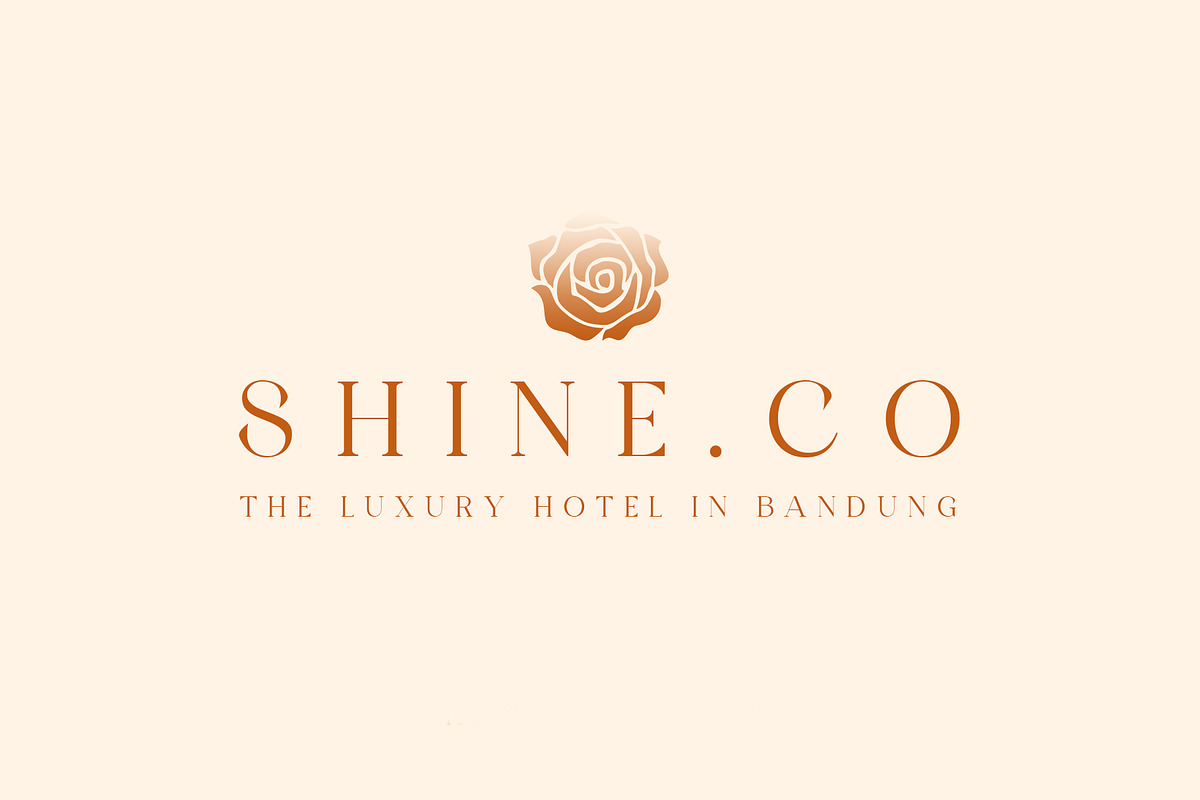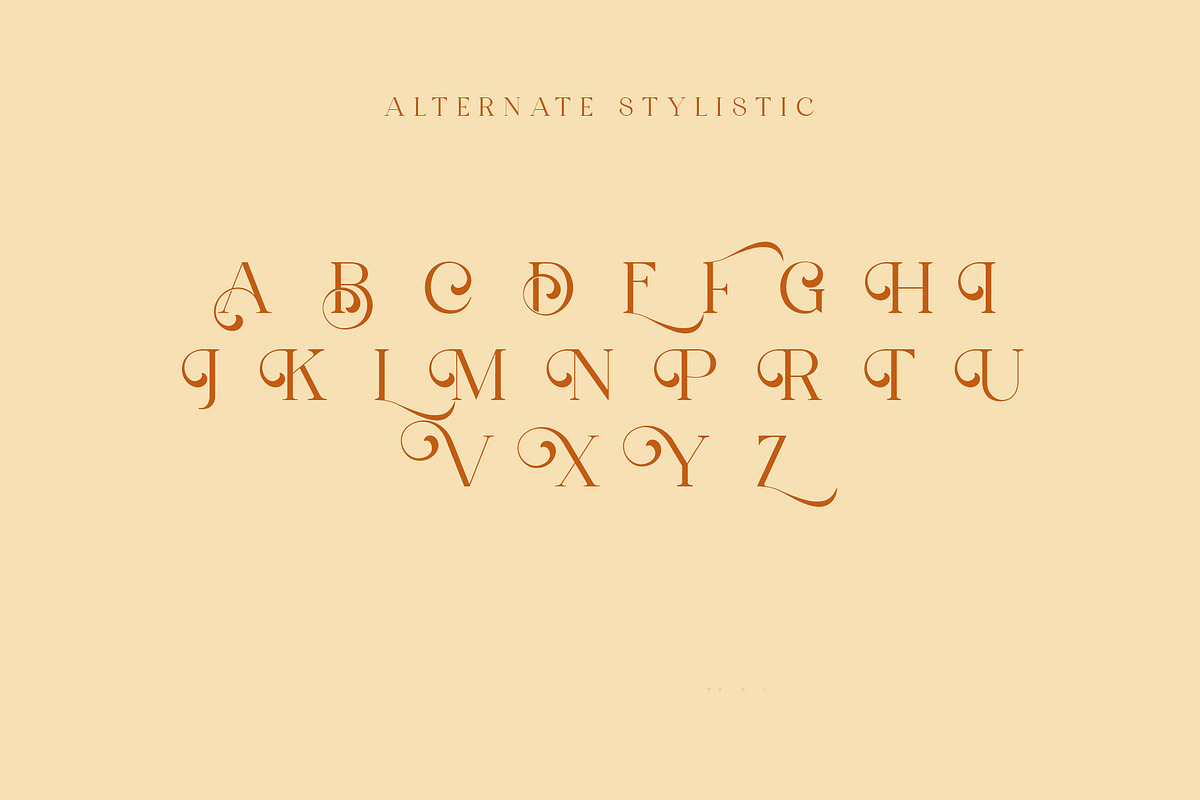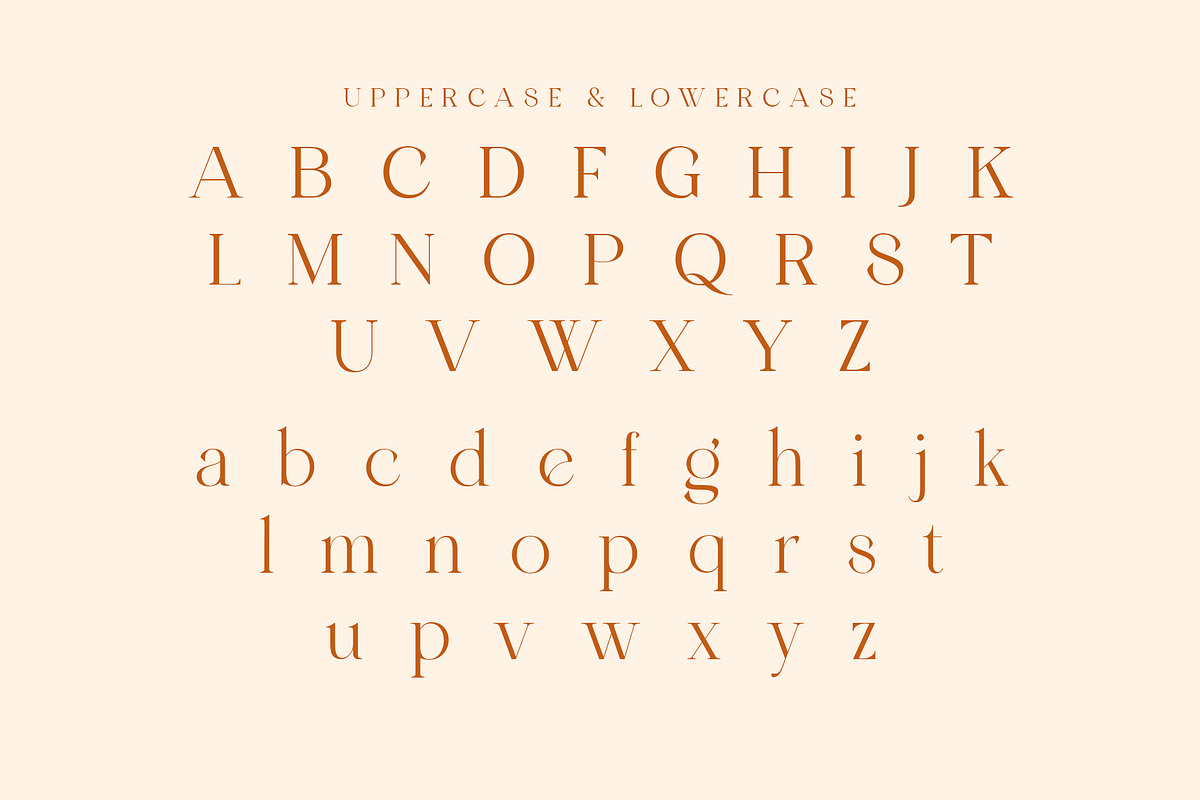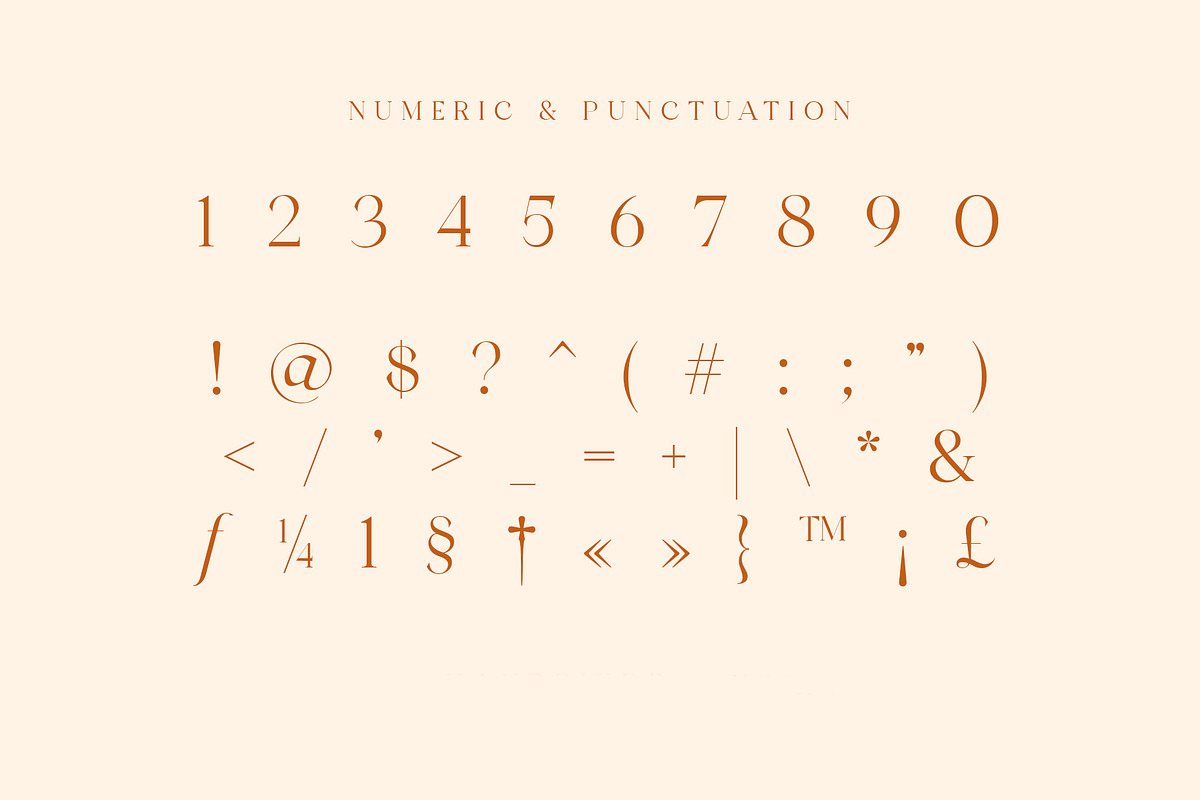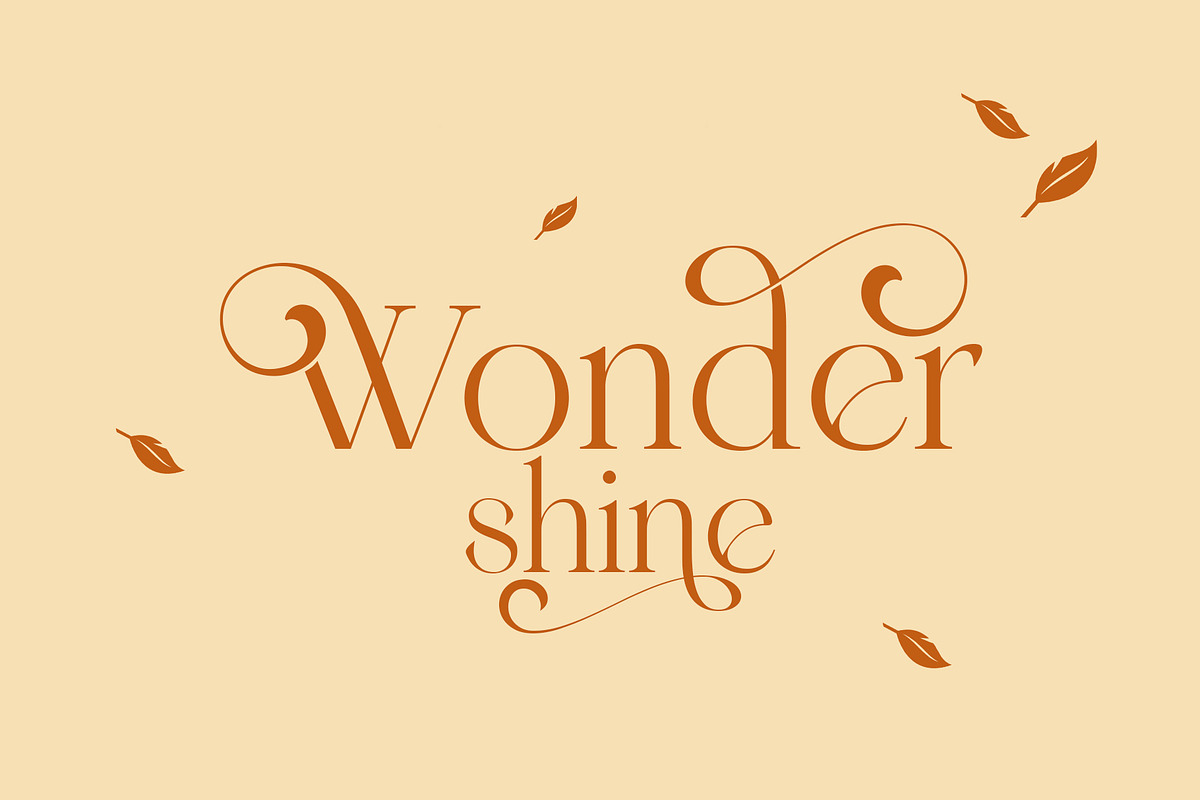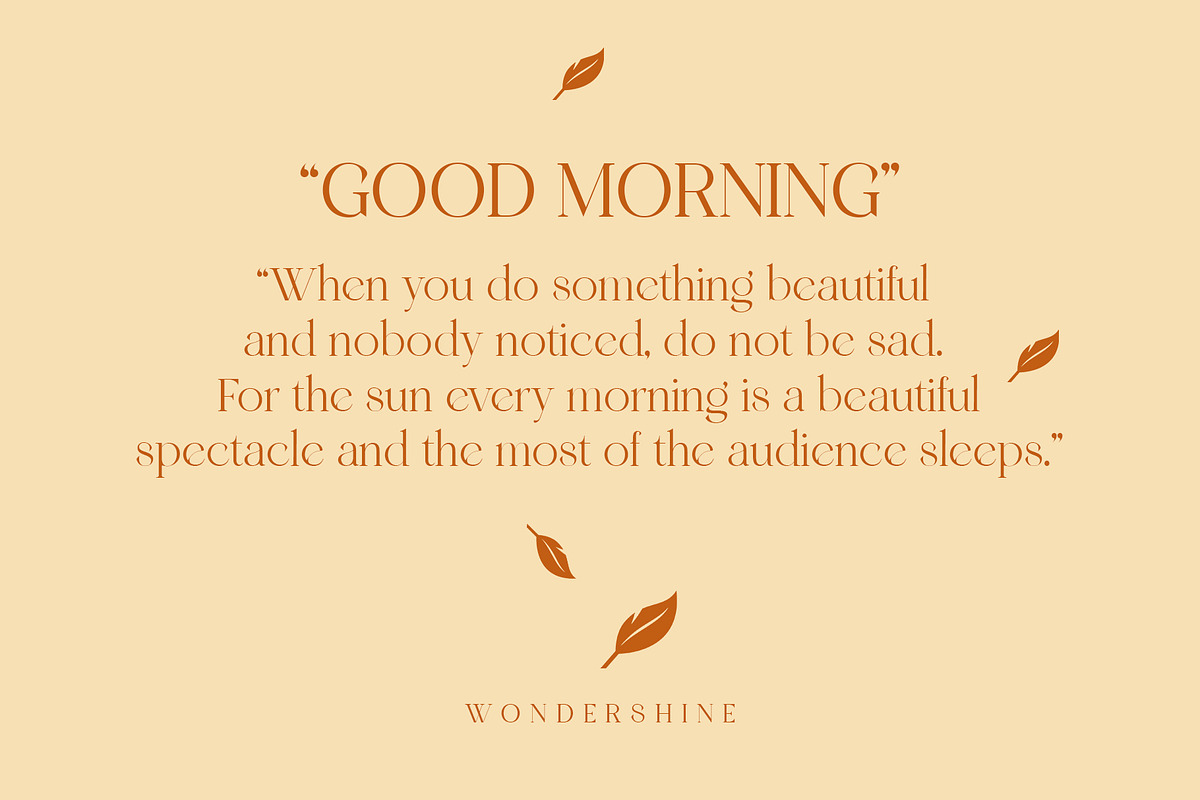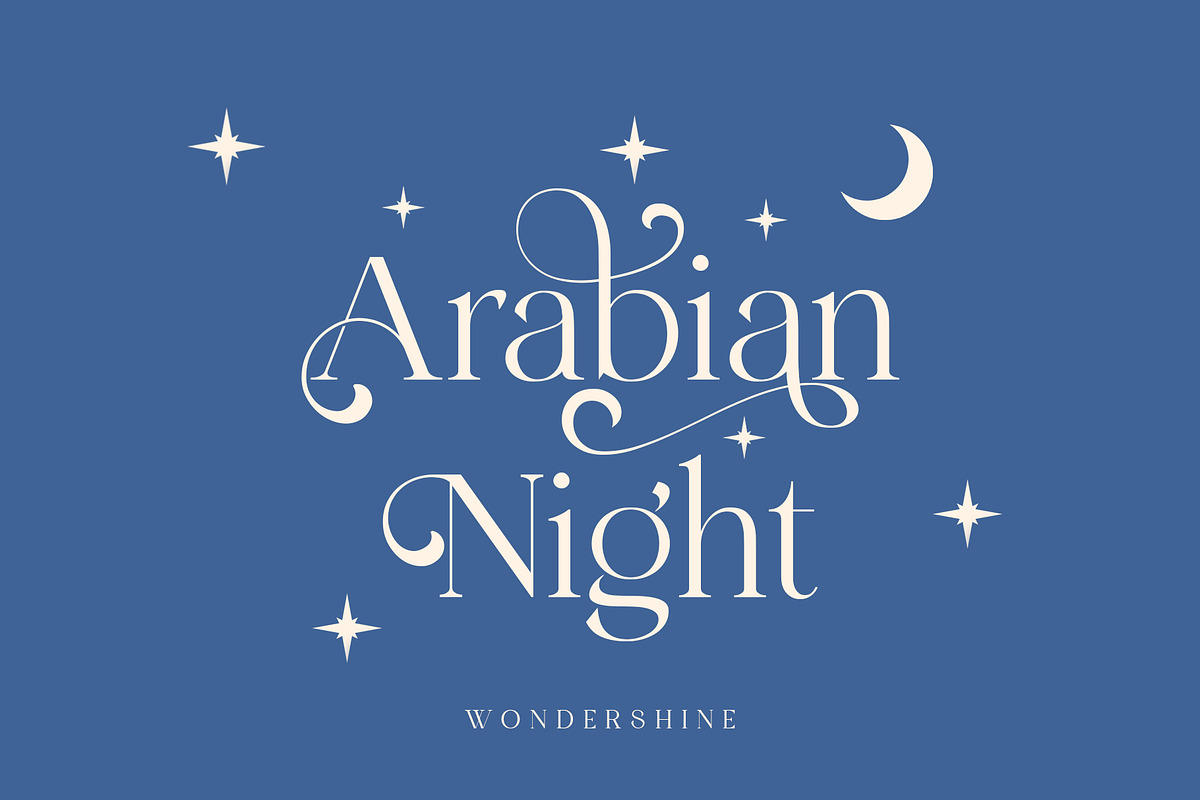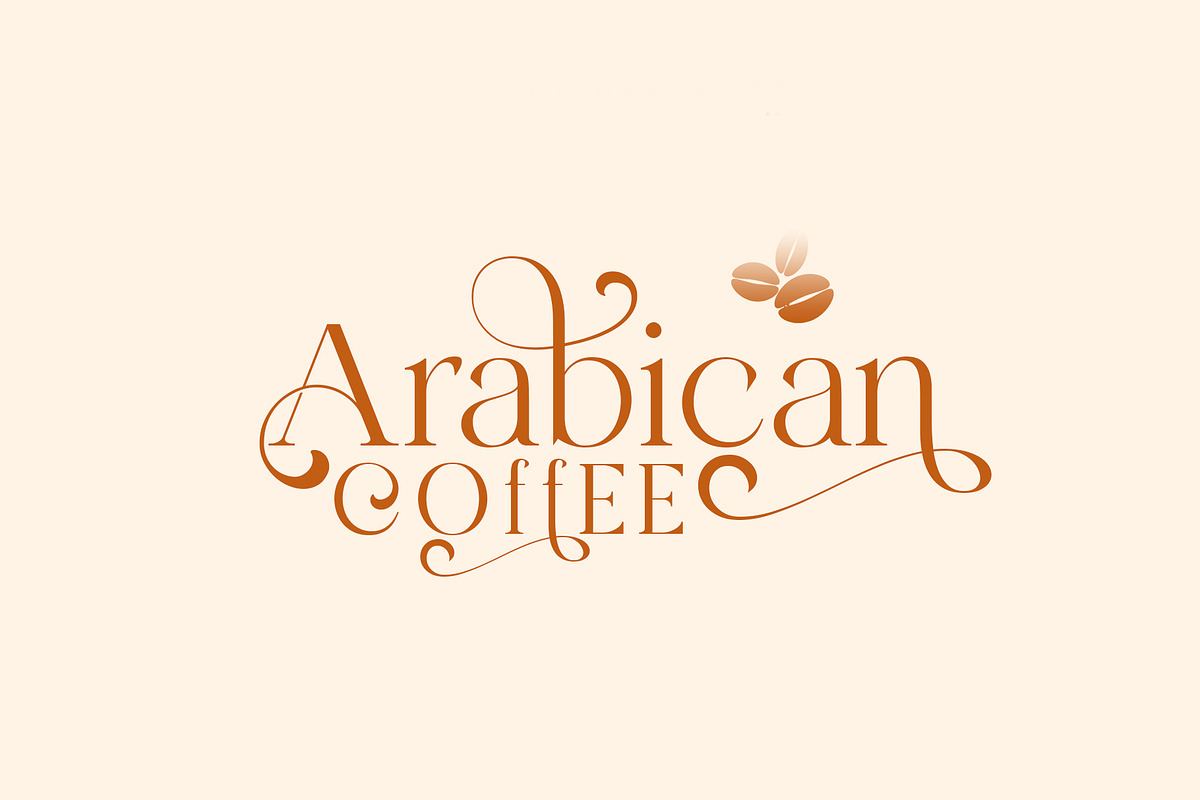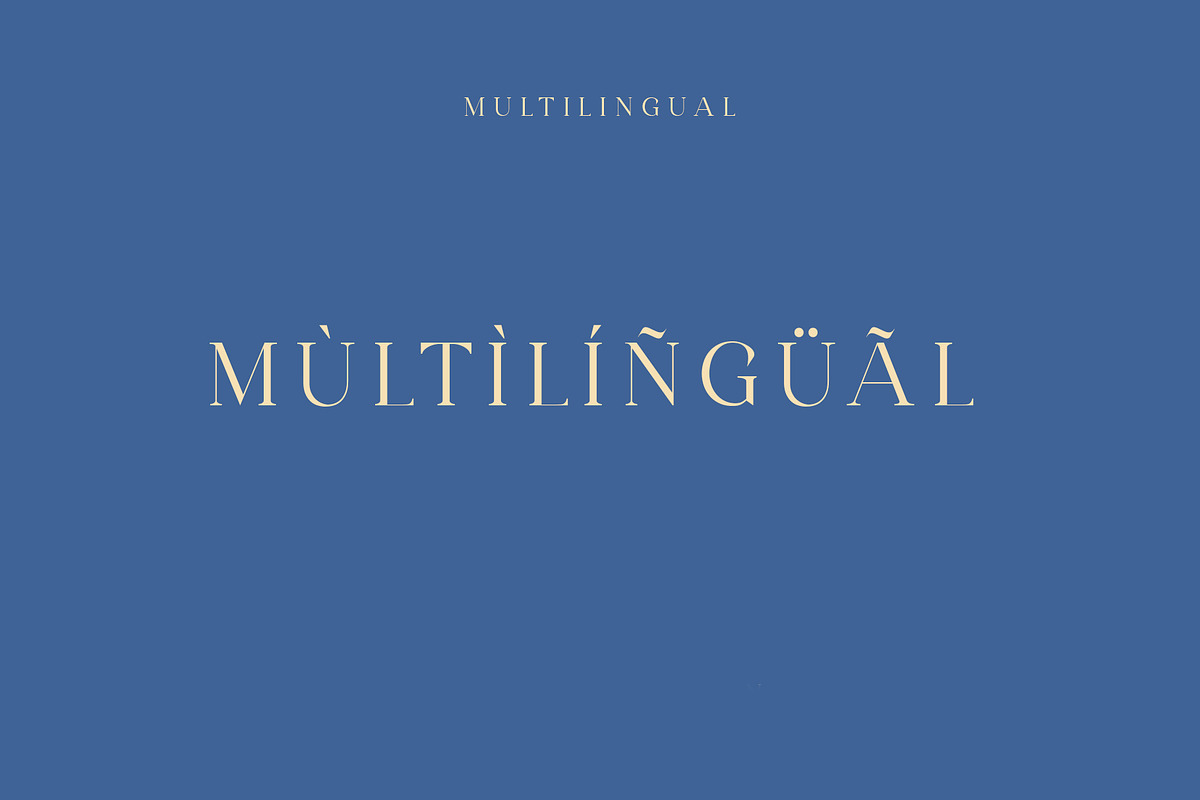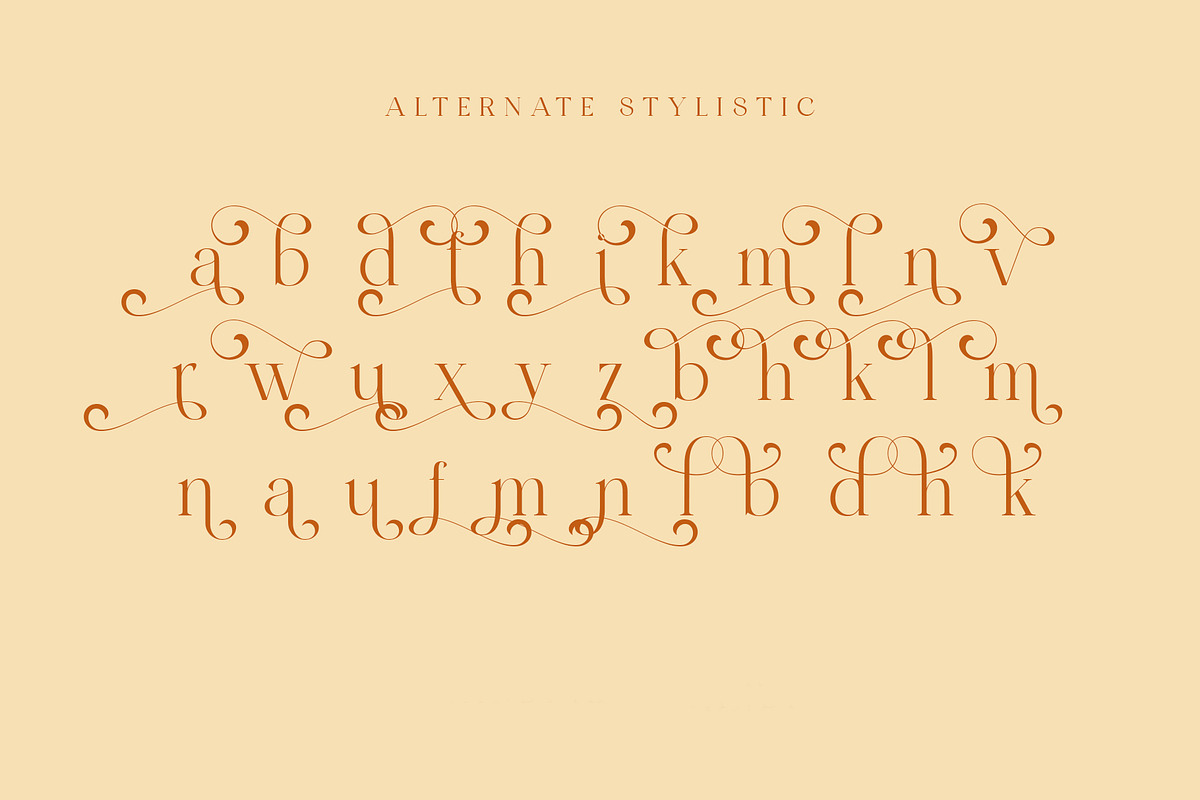
Wondershine
wondershine is elegant,beauty and smoothless serif display .This font is suitable for invitation cards, decorations, clothing products, greeting cards and others. This font also has uppercase, lowercase, numeric, puntuation and multilingual. and there are several ligature and stylistic alternate.